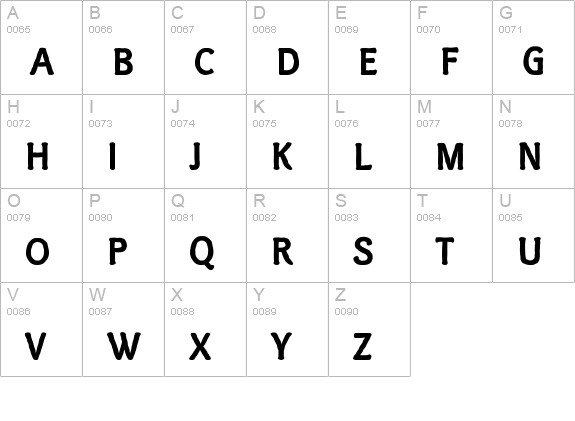
ClicheeBold Font Details
ClicheeBold is a sleek and stylish font that exudes confidence and modernity. With its bold and eye-catching design, ClicheeBold is perfect for making a statement in any project. The strong lines and sharp angles of this font give it a unique edge that sets it apart from traditional typefaces. What makes ClicheeBold even more appealing is that it is available for free download at FontsMarket.com. This means you can easily access this striking font and use it to elevate your designs without any cost. Whether you're working on a poster, logo, or website, ClicheeBold is sure to make a lasting impression with its bold and contemporary style. Download ClicheeBold today and add a touch of sophistication to your projects.